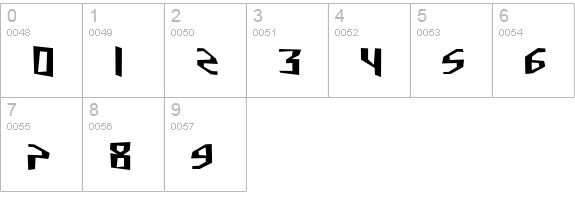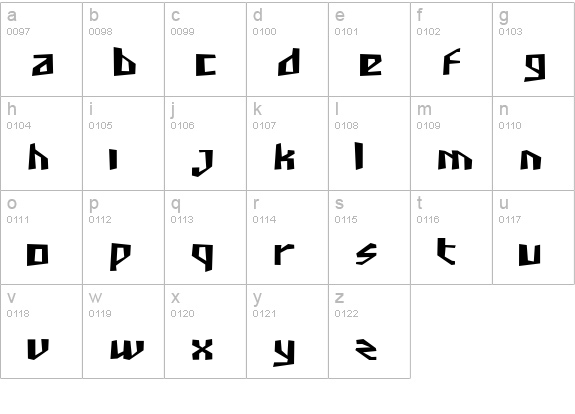
SF Junk Culture Font Details
Introducing SF Junk Culture, a captivating and dynamic font that embodies the essence of urban grit and modernity. With its edgy and raw design, SF Junk Culture captures the spirit of the sprawling cityscape, where abandoned junk meets vibrant street art. This font is a celebration of the unconventional, the unconventional beauty found in the discarded, and the rebellious spirit that thrives in the heart of the metropolis. SF Junk Culture boasts an eclectic mix of bold lines, sharp angles, and artistic flourishes, creating a unique visual experience that demands attention. Its versatile nature allows it to effortlessly adapt to various design projects, adding a touch of urban sophistication and contemporary appeal. Whether used for headlines, logos, posters, or social media graphics, SF Junk Culture is sure to make a bold statement. And the best part? SF Junk Culture is available for free! Download this font today at FontsMarket.com, your go-to destination for high-quality fonts. With just a few clicks, you can add this remarkable typeface to your collection and unleash your creativity without any cost. Embrace the energy of the city streets, embrace the free-spirited nature of SF Junk Culture, and elevate your designs to new heights. Get your hands on this remarkable font and let your imagination run wild.